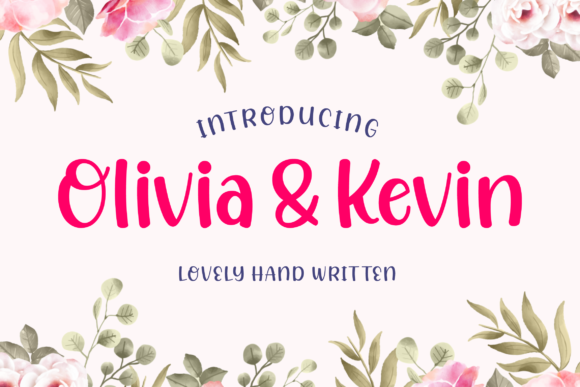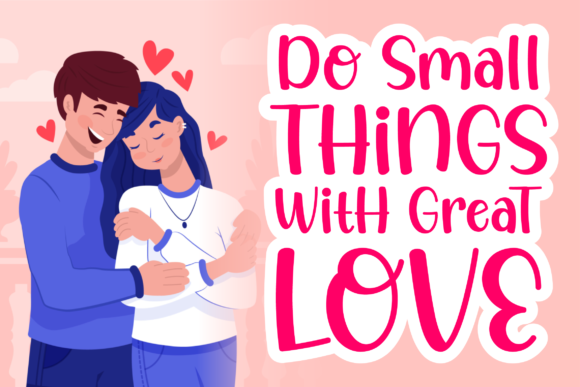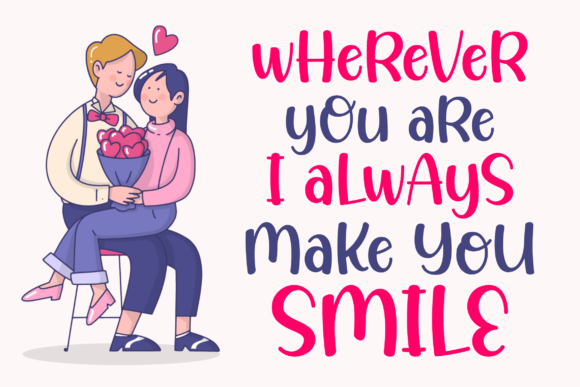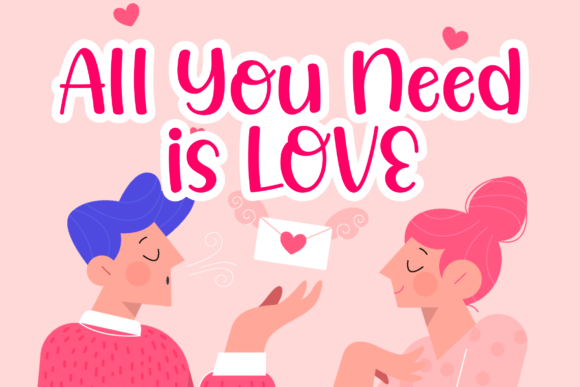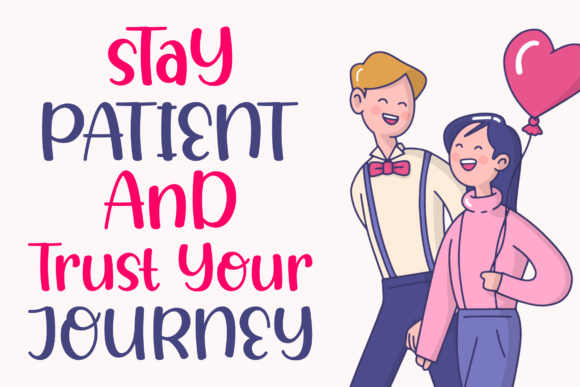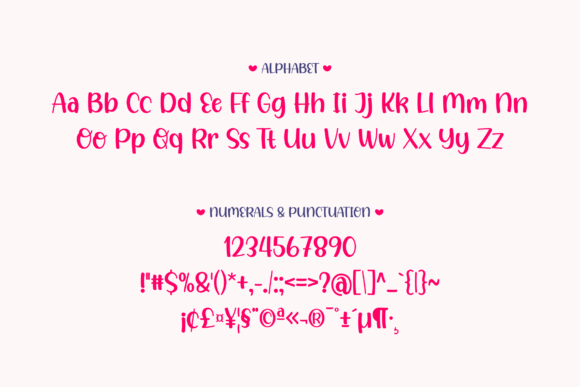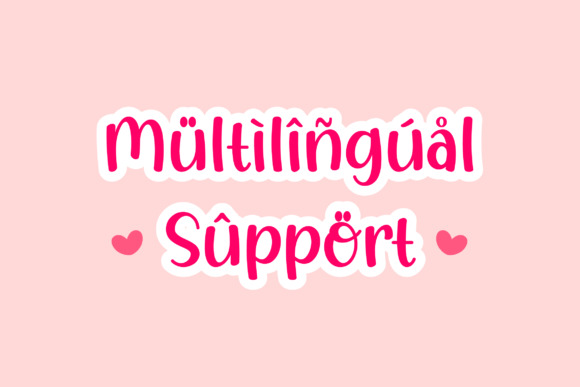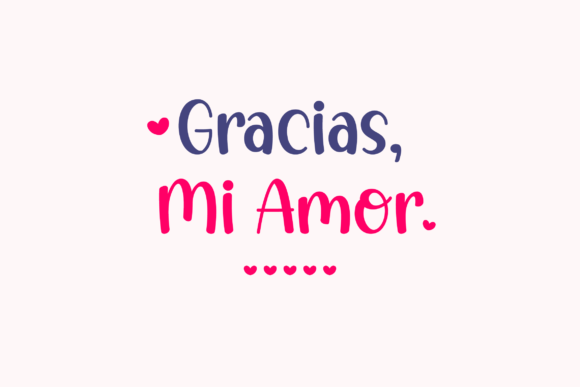
Olivia & Kevin Font
About Olivia & Kevin Font
Olivia and Kevin is a fun and quirky handwritten font that is sure to bring a playful and memorable touch to your projects, especially those related to love and Valentine’s Day. With its unique and whimsical style, this font will inspire creativity and add a fun element to your designs.
The font’s hand-drawn appearance and irregular letterforms give it a sense of spontaneity and character. It has a charming and playful vibe that is perfect for crafting projects, such as handmade cards, scrapbooking, and DIY gifts. You can also use it to create eye-catching posters, magazine layouts, and food recipes that need a touch of fun and personality.
One of the strengths of Olivia and Kevin is its versatility. It can be used for various design purposes, from party invitations and greeting cards to social media posts and branding materials. Its energetic and cheerful demeanor will instantly catch the viewer’s attention and create a positive and memorable impression.
When working with Olivia and Kevin, feel free to experiment with colors, sizes, and layout arrangements. The font’s irregular shapes and playful details can be accentuated by using vibrant colors or combining it with other complementary typefaces. Let your creativity run wild and embrace the fun and whimsy that this font brings.
Whether you’re expressing your love to someone special, creating party invitations, or designing playful content, Olivia and Kevin will add a touch of joy and creativity to your projects. Its unique and memorable style will make your designs stand out and leave a lasting impression on your audience.
So, go ahead and let Olivia and Kevin inspire you to create something fun and memorable. Explore the endless possibilities and bring a sense of playfulness to your crafting projects, posters, magazines, food recipes, party invitations, and everything else that could benefit from this delightful display type!